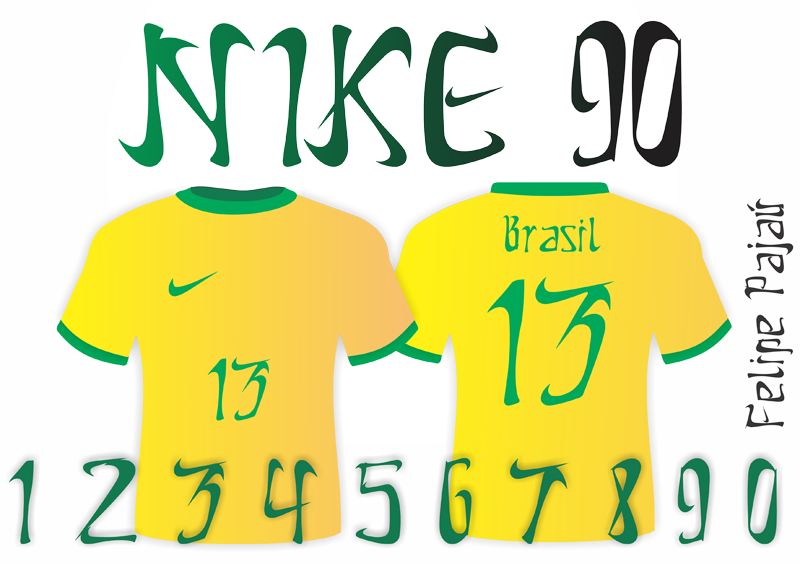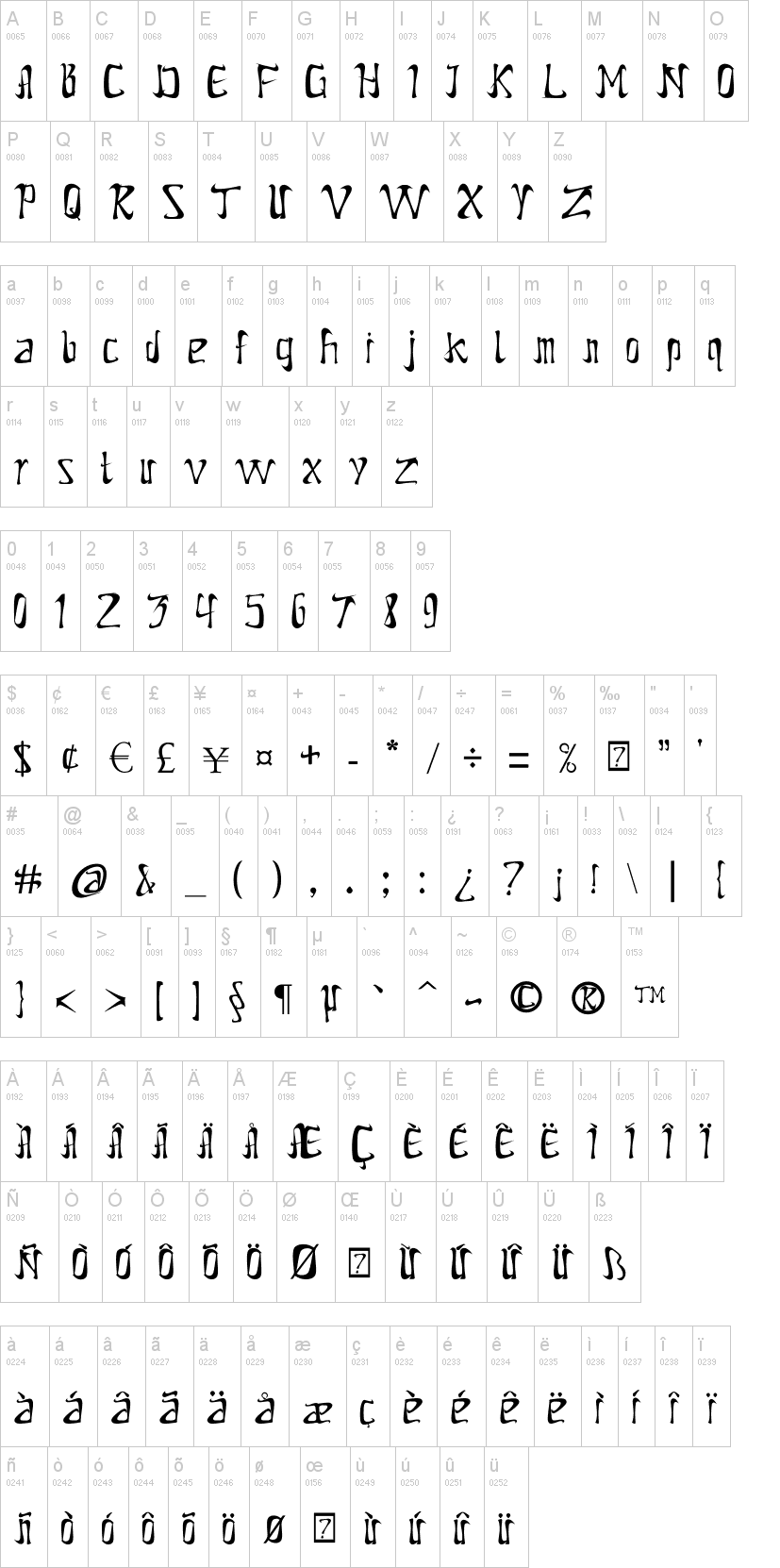
Шрифт Nike 90
Nike 90 is a Font Created for Nike Inc.
This idea was think about the ancient way of writing in Mesopotamia, Cuneiform writing.
This was worked to stamp Nike clothes!
This idea was think about the ancient way of writing in Mesopotamia, Cuneiform writing.
This was worked to stamp Nike clothes!